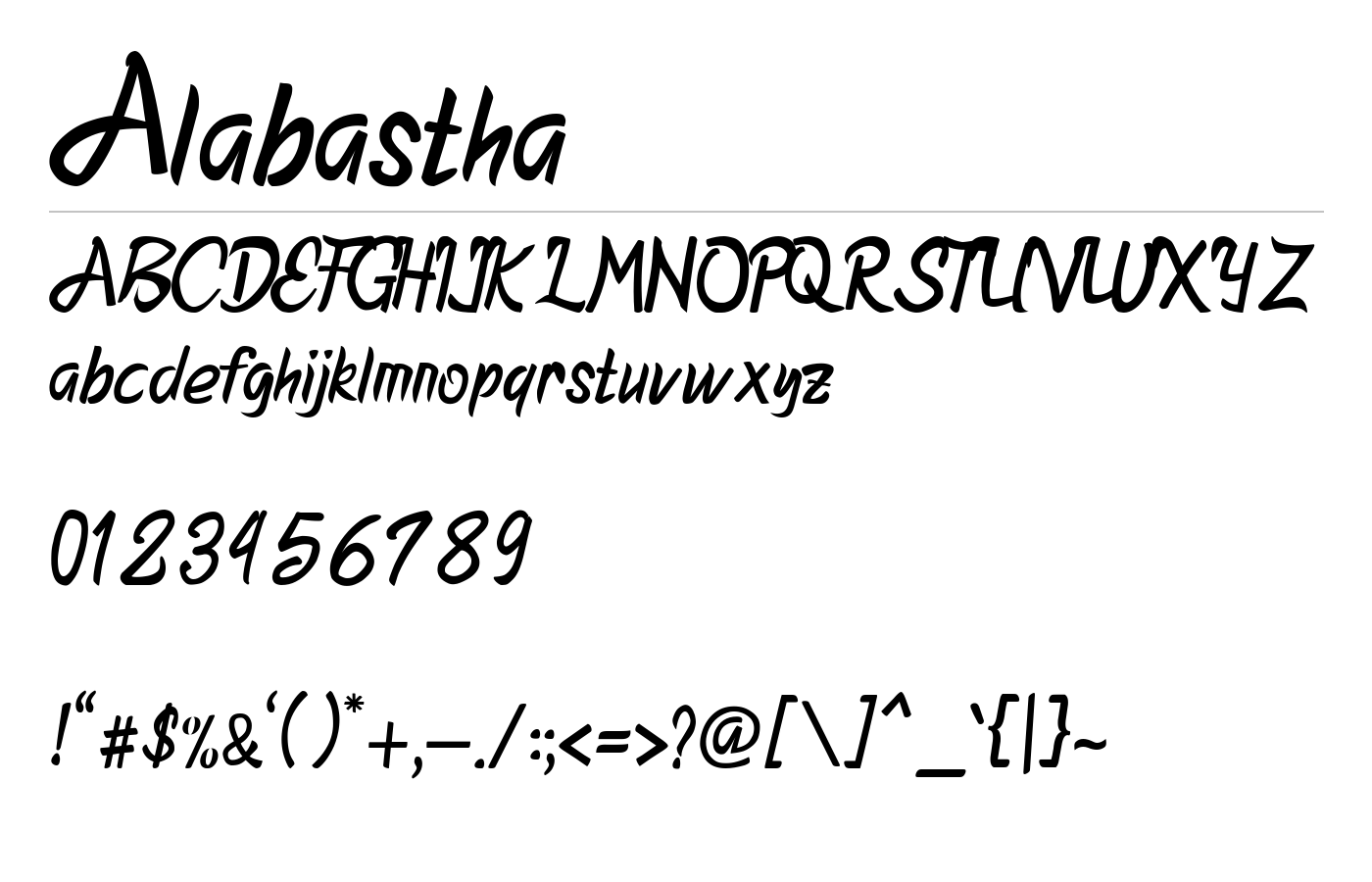
Alabastha is a casual script font with a light, playful feel characterized by smooth, rounded strokes and a lively, handwritten style. Its moderate contrast and flowing letterforms give it an approachable, friendly personality, making it ideal for creative projects, informal branding, and invitations. This font works well in headlines and decorative text where a warm, personal touch is desired.